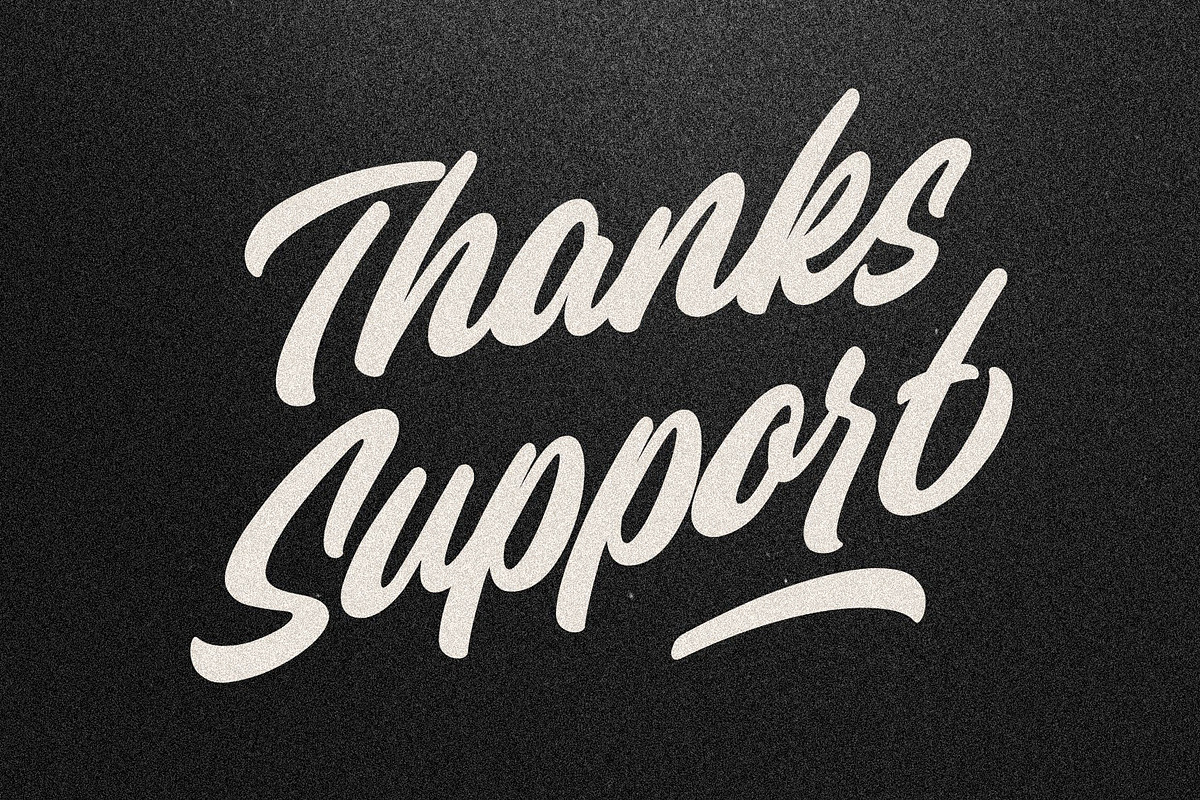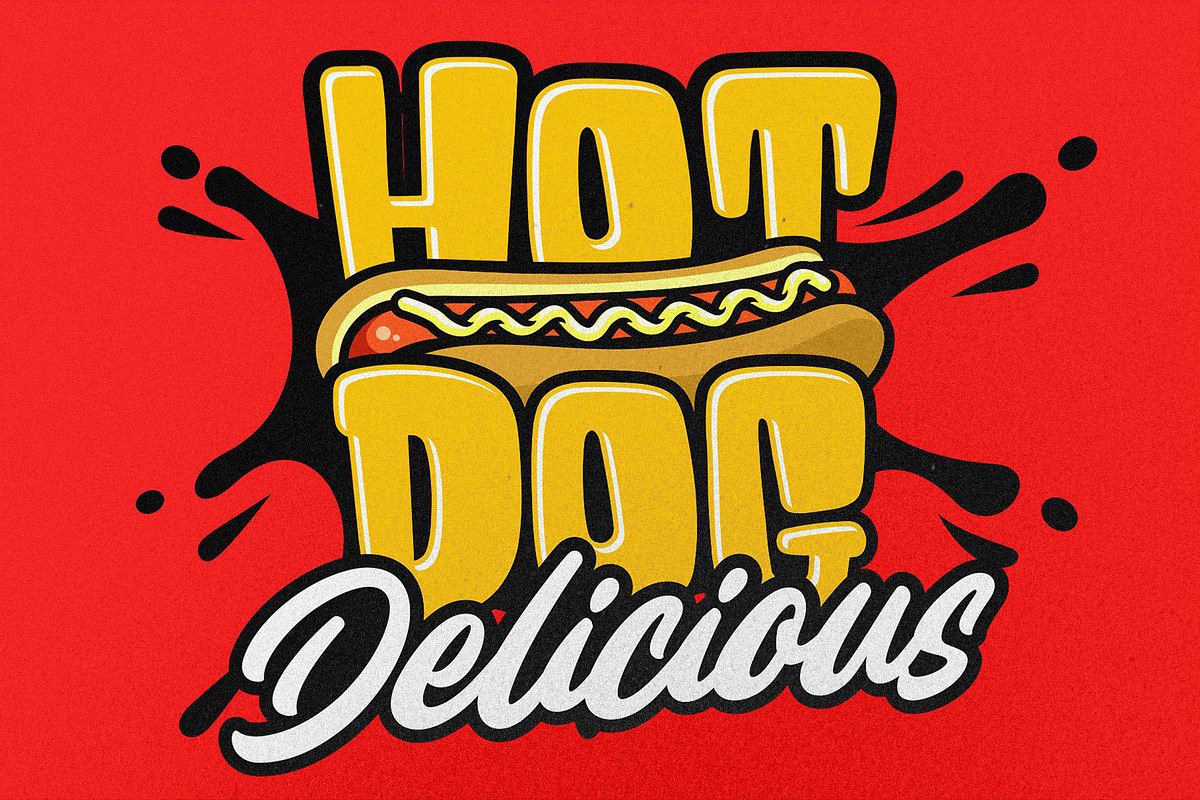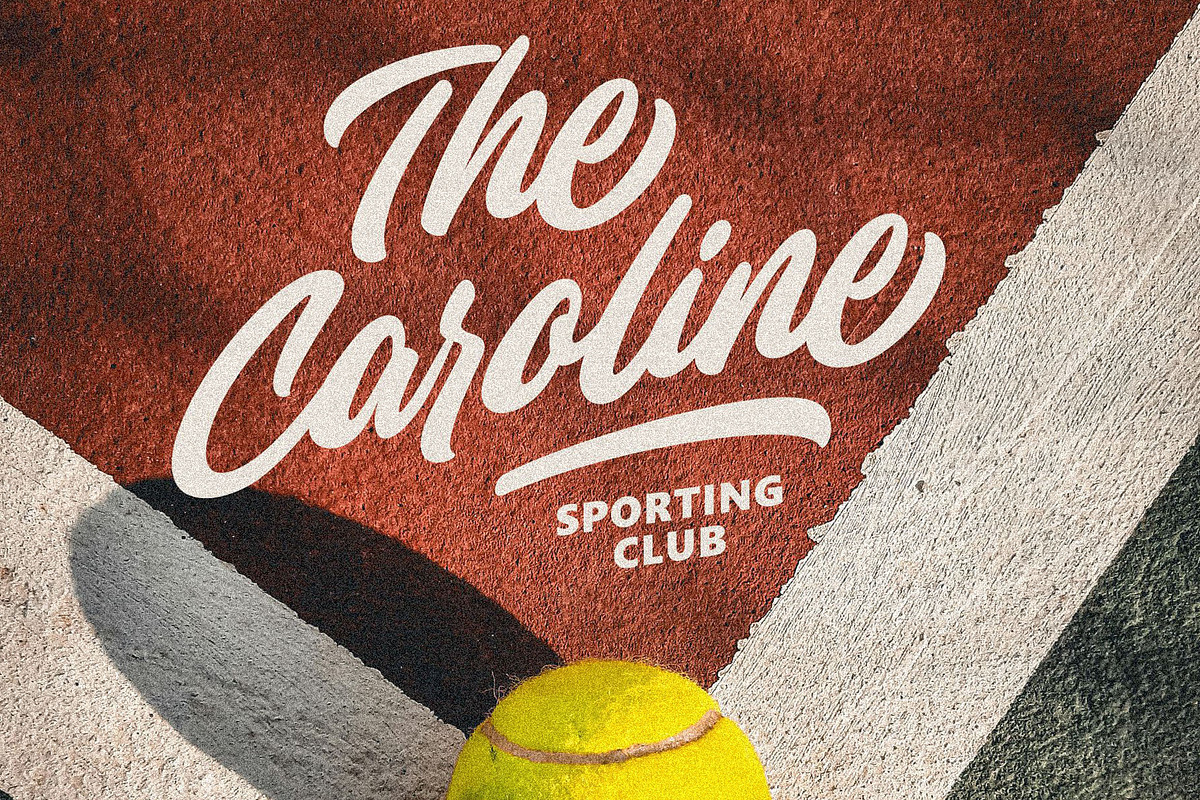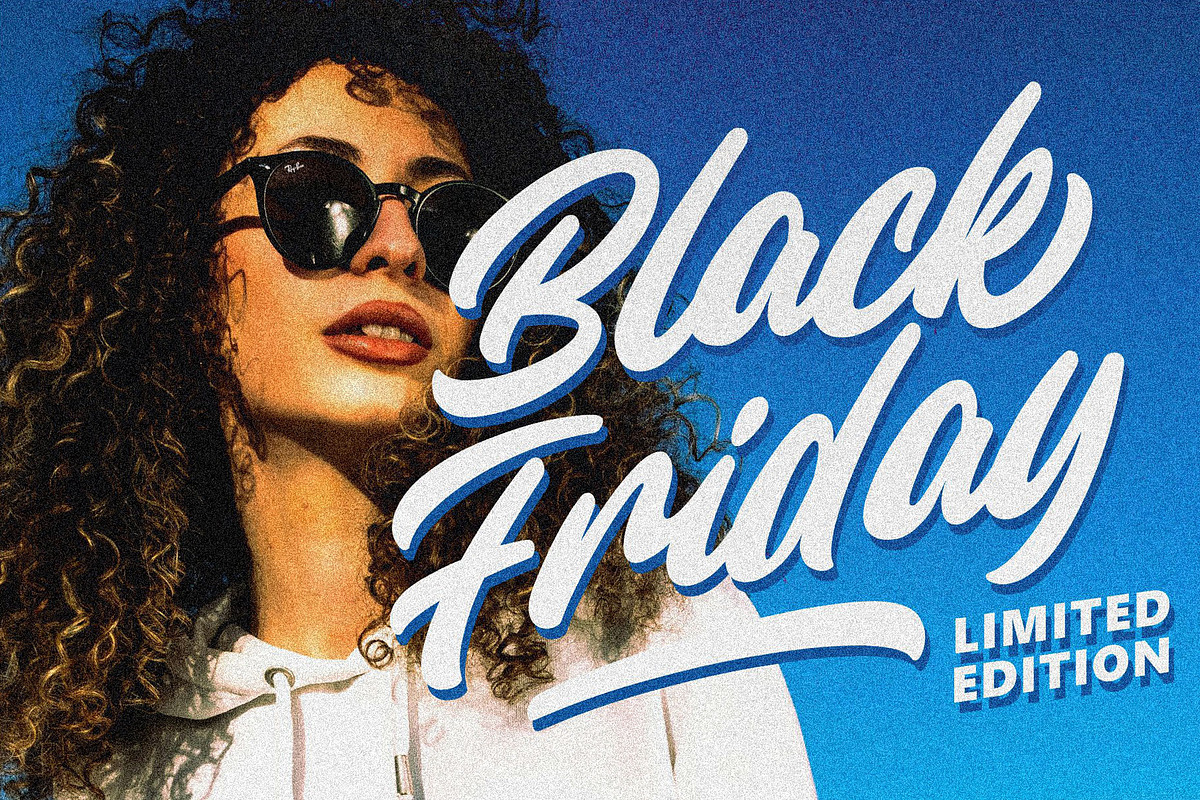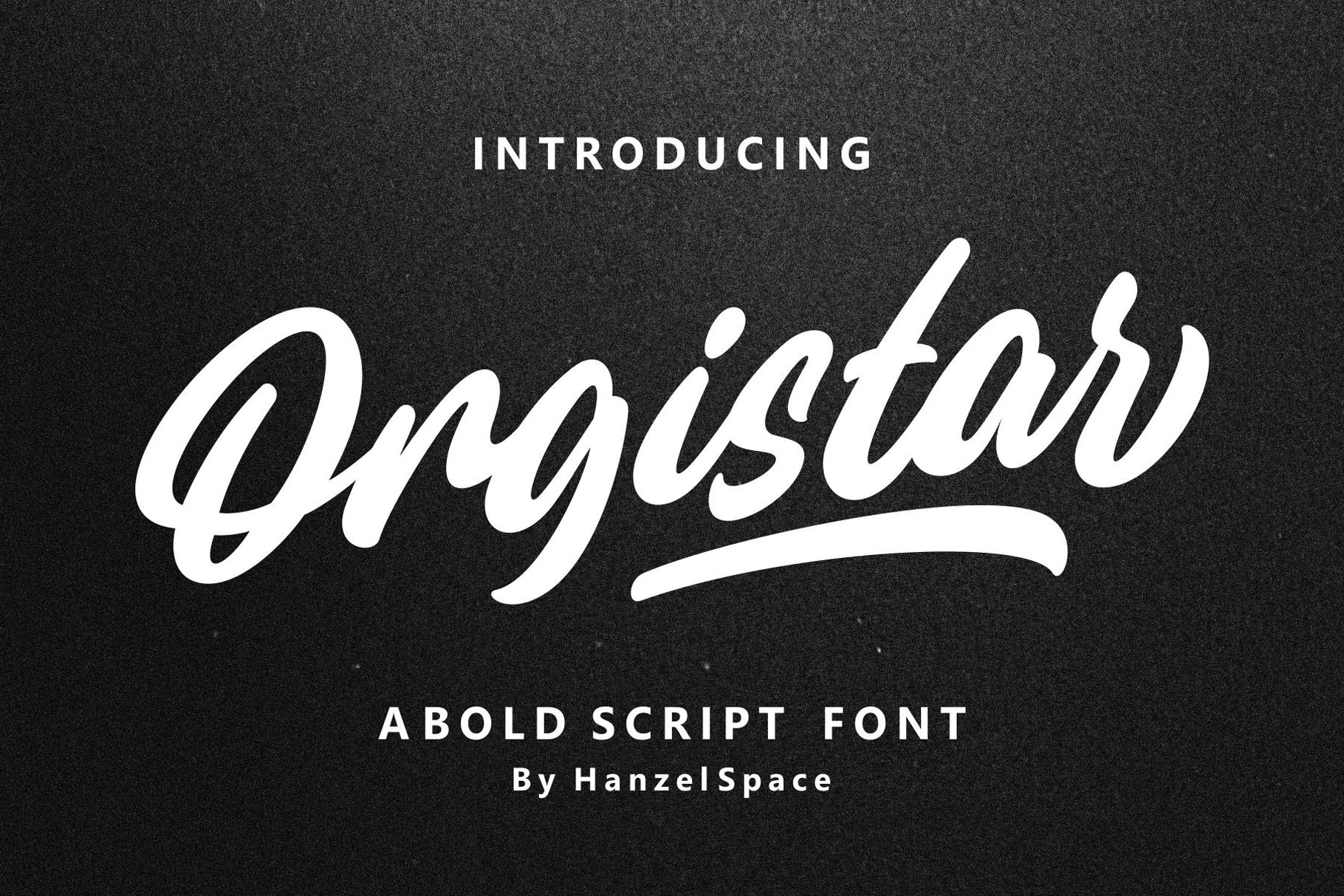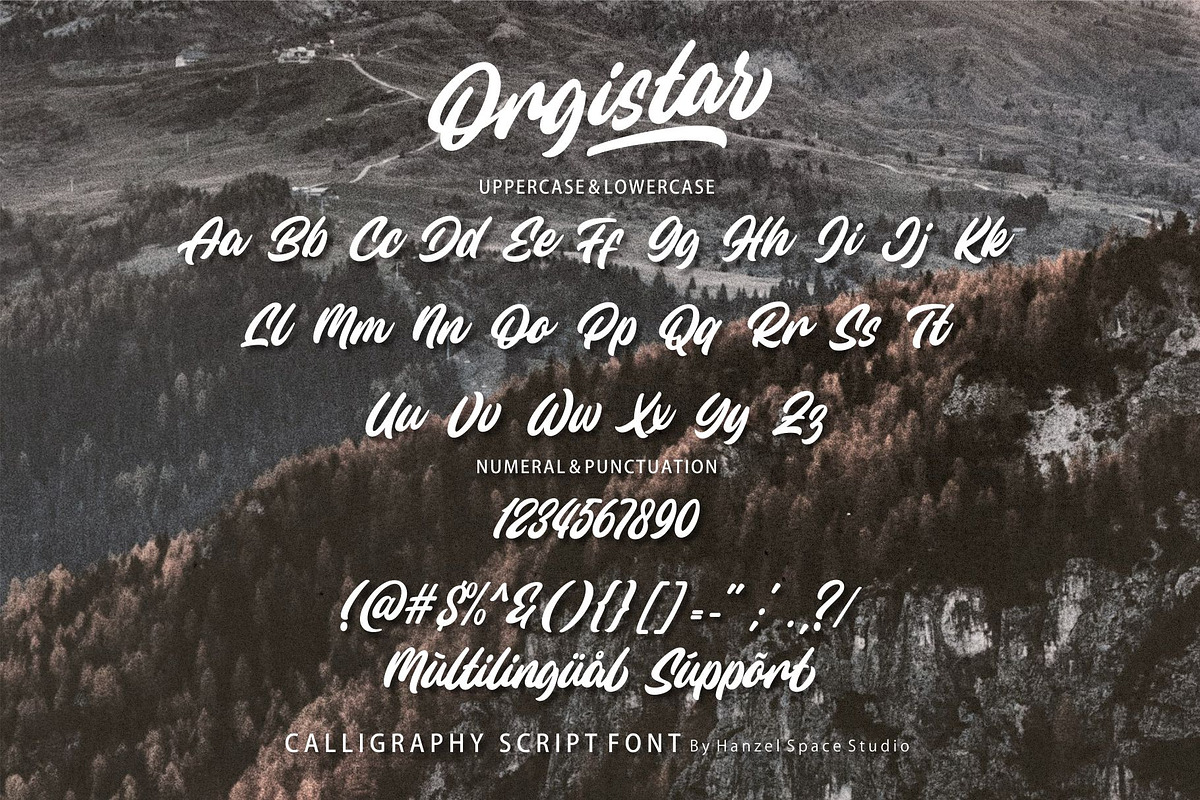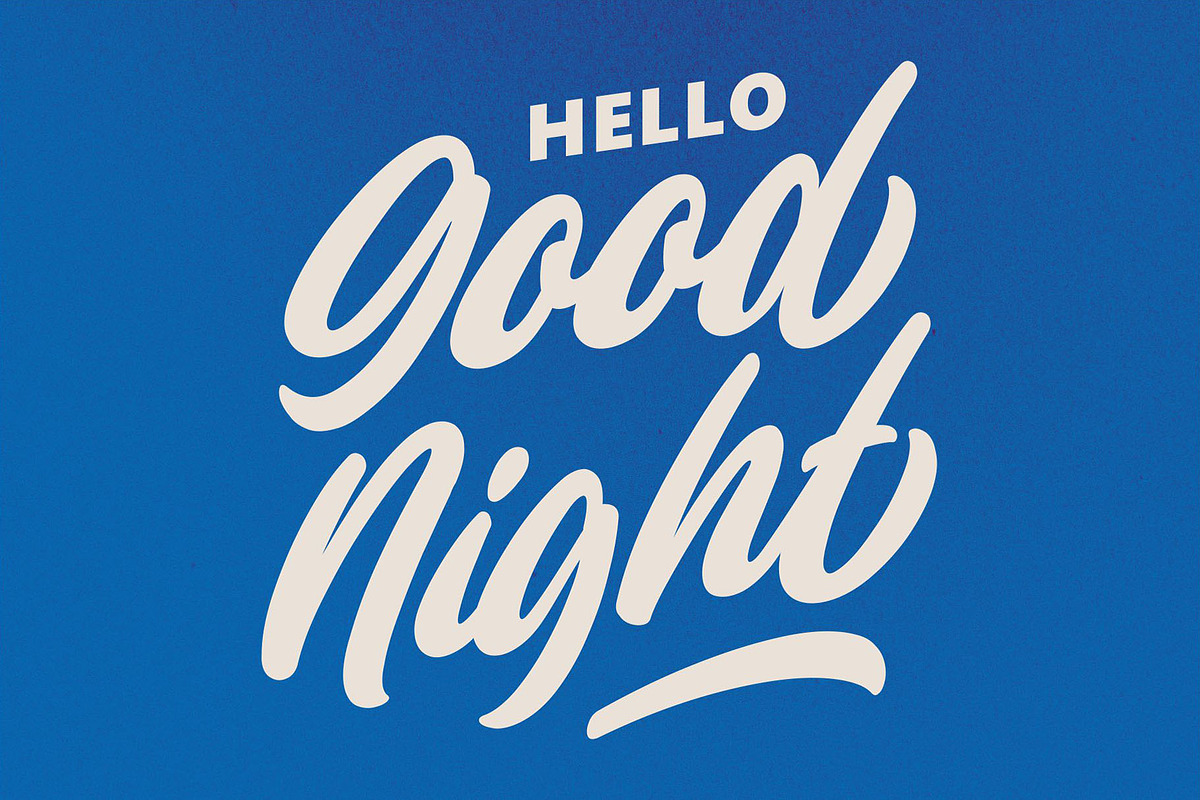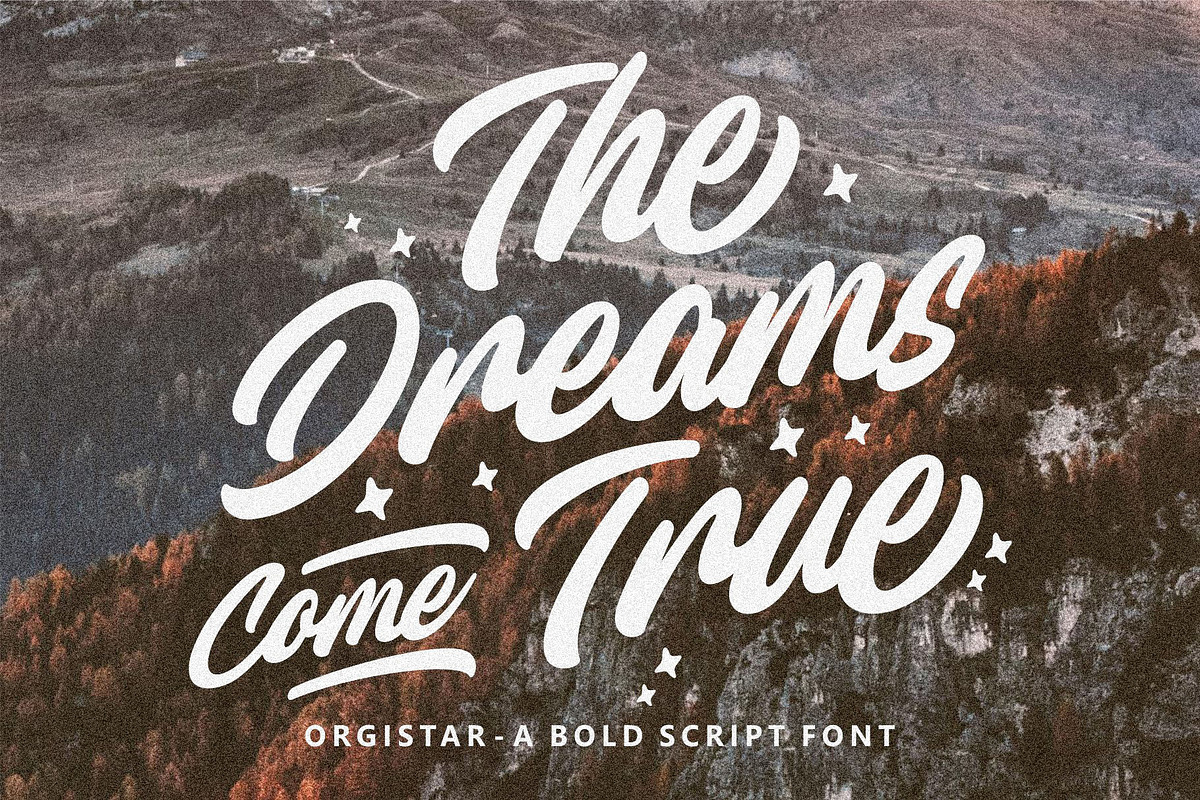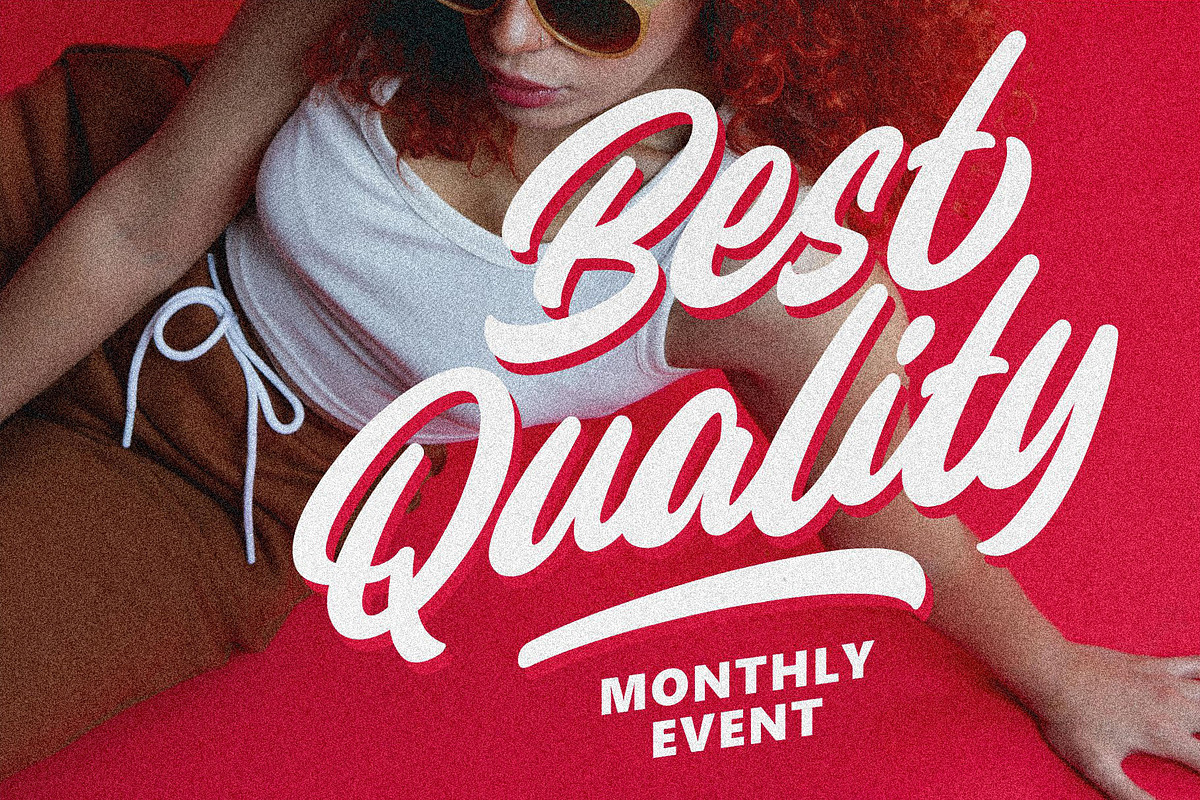
Orgistar - Bold Script Font
Introducing, Orgistar – a standout bold script with a touch of natural looks. This type of font perfectly made to be applied especially in logo, headline, signage and the other various formal forms such as invitations, labels, logos, magazines, books, greeting / wedding cards, packaging, fashion, make up, stationery, novels, labels or any type of advertising purpose.
Multilanguage Supports
Swash